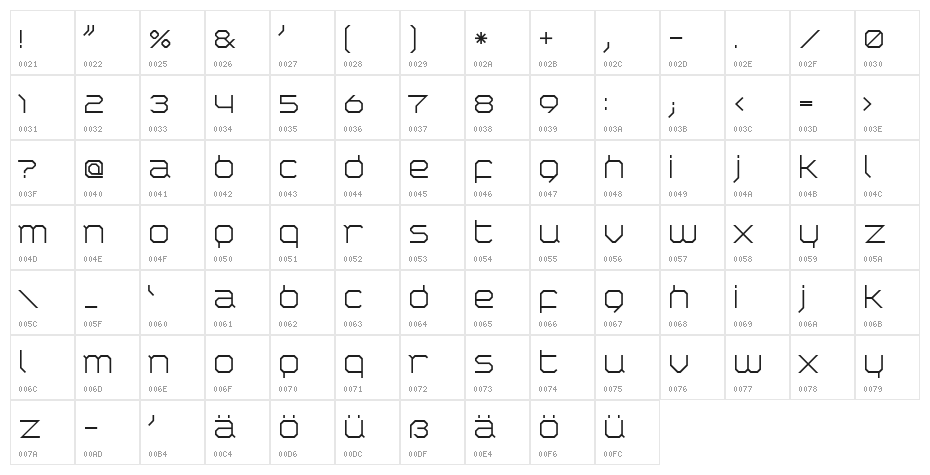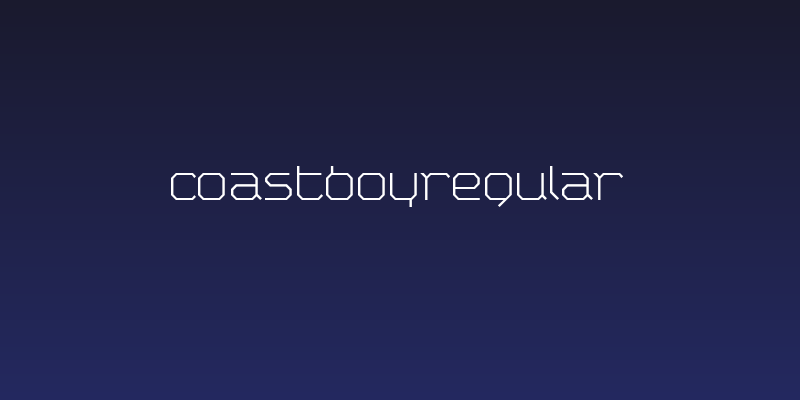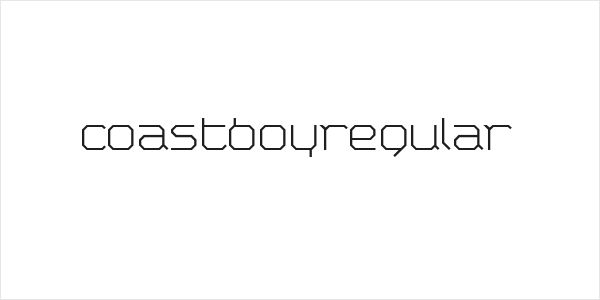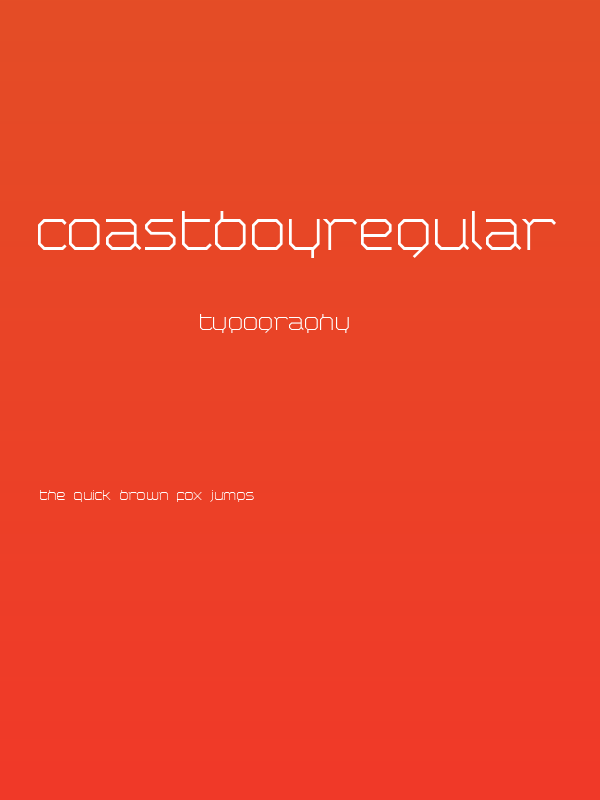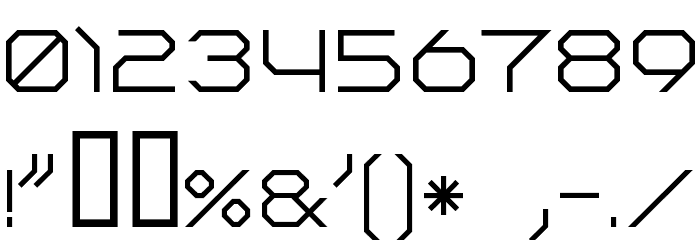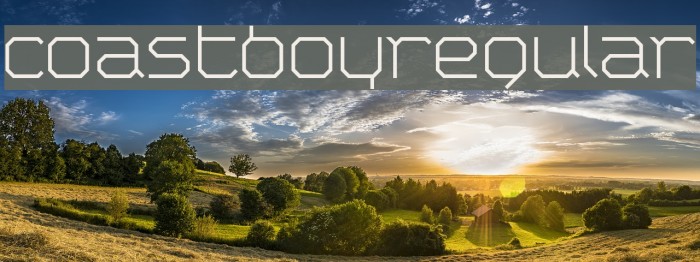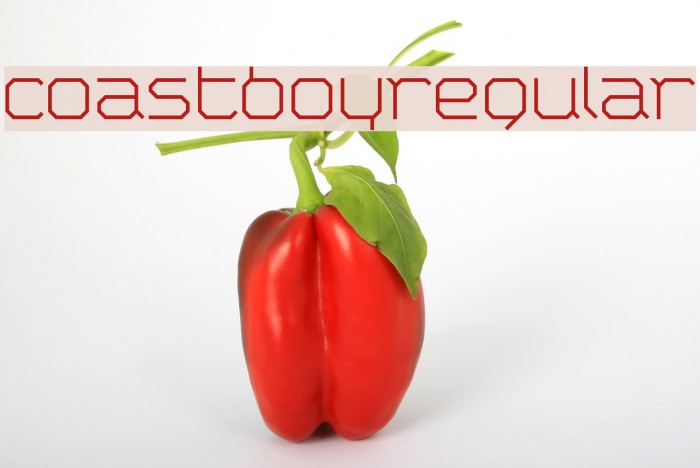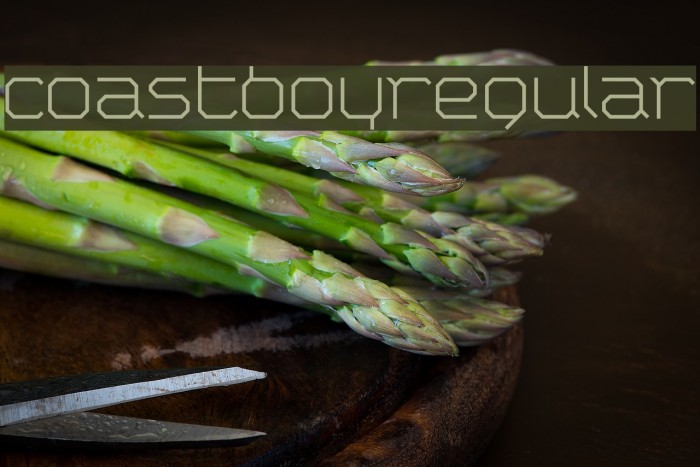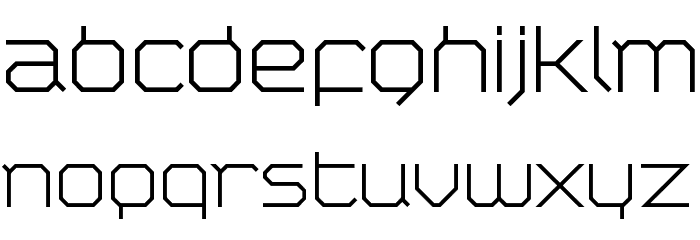
Coastboyregular Font
Coastboyregular Description
This font features a geometric and angular design, characterized by its sharp edges and straight lines. The letters are constructed with a consistent stroke width, giving it a uniform appearance. The style is reminiscent of digital or technological themes, with a futuristic and modern aesthetic. The uppercase and lowercase letters maintain a similar structure, enhancing readability while preserving the unique style. Numbers and special characters follow the same design principles, making them easily recognizable and cohesive with the alphabet. The overall look is clean and minimalistic, suitable for projects that require a contemporary and edgy feel.
| Use Case | Logos, Headlines, Digital interfaces |
| Proposed Projects | Ideal for tech branding, digital interfaces, futuristic designs, and modern posters. |